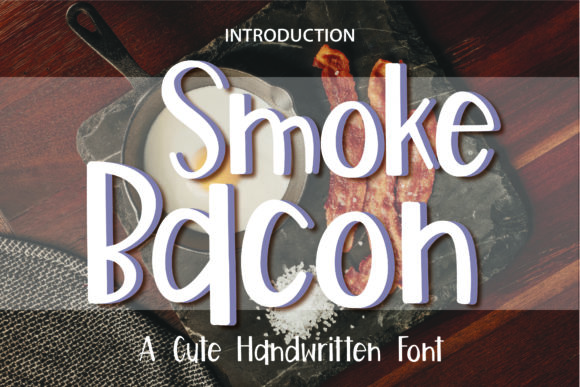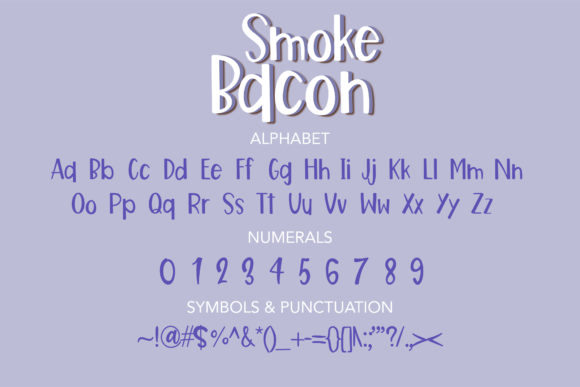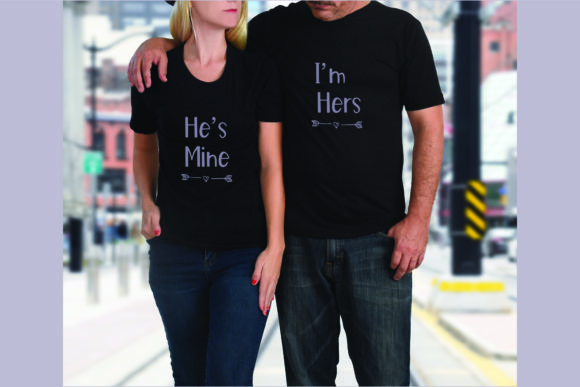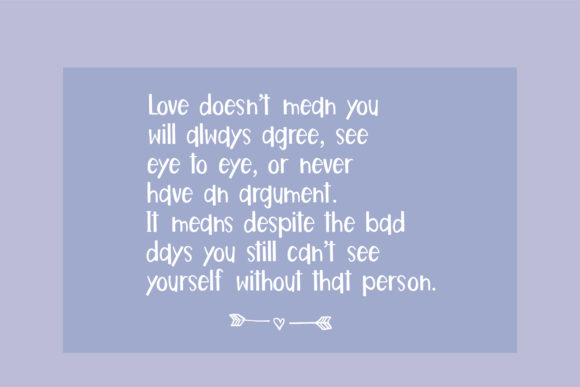
About Smoke Bacon Font
Smoke Bacon is a clean, simple and adaptable handwritten font. This font was particularly crafted for those who need a beautiful and refreshing look to their designs.